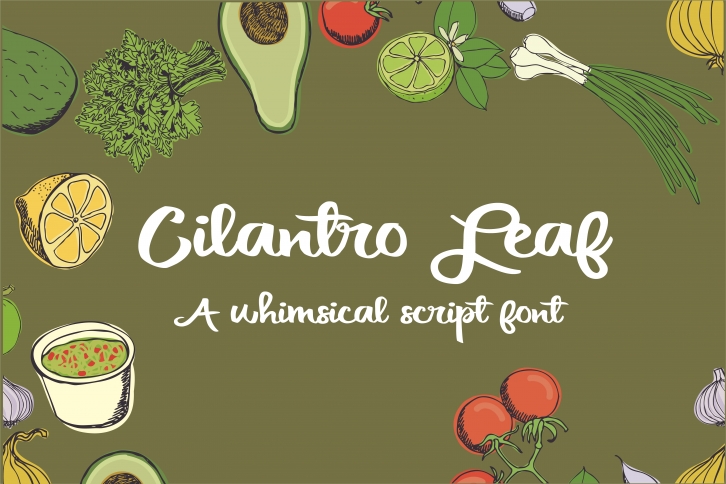
PN Cilantro Leaf is a trendy and unique font with an authentic style. It was designed by Illustration Ink and it's a great choice for creative people who need such a font. It was released on April 16, 2018 and the file size is 13.81 MB. PN Cilantro Leaf will add an organic vibe to any design idea!